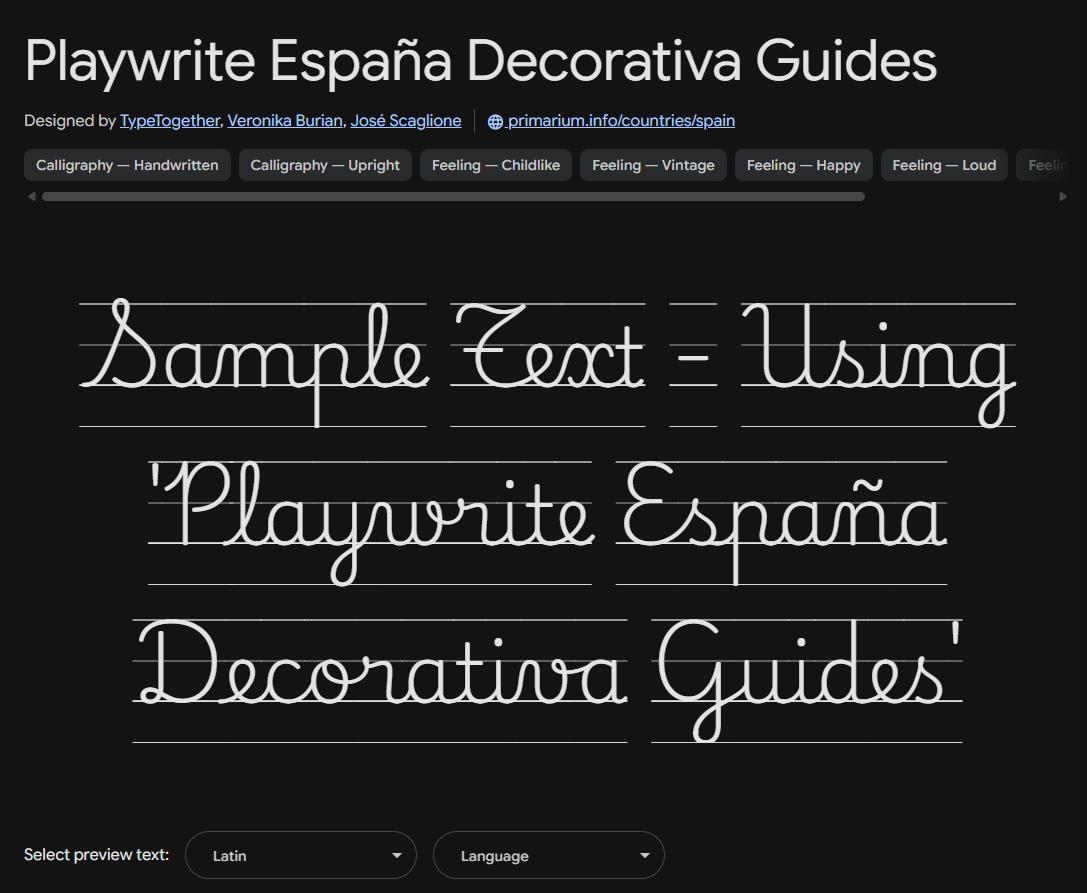
Playwrite España Decorativa Guides, a single-style pedagogical masterpiece engineered by Veronika Burian and José Scaglione of TypeTogether, represents a synthesis of cultural orthography and advanced typographic architecture designed to facilitate foundational literacy. This specialized typeface integrates structural horizontal guides directly into its vertical metrics, providing an immediate visual scaffold that maps the relationship between x-height, ascenders, and descenders according to the Spanish handwriting tradition. By utilizing high-fidelity glyph construction that emulates rhythmic pen-nib pressure and precise joinery, the font transforms the decorative cursive skeleton into a functional instructional tool, ensuring that the ornamental flourishes remain anchored to a rigorous geometric baseline for optimal legibility and motor skill acquisition.
The Playwrite España Decorativa Guides font family serves as a sophisticated pedagogical tool that bridges the gap between digital precision and the tactile nature of traditional schoolroom penmanship through its upright calligraphic ductus and handwritten skeletal structure. By integrating structural rule lines directly into the typeface, it evokes a vintage, instructional aesthetic that remains playful and childlike, yet possesses a rugged, textured presence that feels both happy and loud on the layout. This typeface adheres to specific Spanish educational standards, utilizing a high x-height and deliberate verticality to provide a rhythmic, upright script that is semantically optimized for early literacy. Its unique combination of playful geometry and technical clarity transforms standard educational materials into a vibrant typographic experience, blending the warmth of manual handwriting with the functional requirements of modern screen and print environments.
Due to its specialized pedagogical architecture featuring integrated ruling lines and continuous cursive strokes, Playwrite España Decorativa Guides is fundamentally unsuitable for high-density data environments, corporate financial reporting, or complex UI/UX interfaces where legibility at small optical sizes is critical. This typeface, engineered by TypeTogether with specific horizontal metrics to facilitate primary education handwriting instruction, introduces significant visual noise and fixed vertical constraints that clash with the clean aesthetic requirements of modern minimalist branding and the strict accessibility standards of medical or legal documentation. Its decorative flourishes and school-script origins lack the neutral typographic voice necessary for professional B2B communications, while the baked-in guidelines disrupt the spatial harmony of multi-layered graphic compositions, making it a poor choice for any industry requiring high information density or an atmosphere of clinical authority.
This typeface excels in educational materials and nostalgic branding that requires a structured, handwritten aesthetic. The variable font weights allow for precise control over visual density, ensuring that the decorative guides maintain their integrity across different CSS font-variation-settings.
The integrated guide lines serve as a distinct architectural feature that adds a layer of technical sophistication to minimalist layouts. By manipulating the stroke-width of the decorative elements, designers can transform these lines into a foundational grid that dictates the vertical rhythm of the entire composition.
The font maintains exceptional clarity in high-resolution print environments, preserving the delicate details of the script and its associated guide lines. Because the glyphs are defined by high-precision cubic Bézier curves, they remain sharp even when scaled up for large-format lithographic printing.
Clean, geometric sans-serifs provide a modern counterpoint that balances the intricate, cursive nature of the decorative guides. Achieving optimal legibility requires a pairing font with a compatible x-height and neutral aperture to prevent visual competition between the complex script and the body text.
While suitable for accent elements, the complexity of the guides can hinder readability when used for long-form body copy on low-density displays. Sub-pixel rendering and anti-aliasing algorithms may blur the fine lines of the guides if the font-size falls below a 16px threshold on standard resolution screens.
Generous line height is necessary to prevent the guide lines of one row from overlapping with the descenders of the row above. Standard leading should be increased to at least 1.5 or 2.0 to accommodate the expanded vertical metrics required by the typeface's unique bounding box.
This font offers a distinctive visual identity for brands seeking an artisanal or pedagogical aesthetic. When converted to outlines, the specific vector path data allows for custom modifications to the guide lines, creating a proprietary logotype that retains its structural balance.
The font is highly effective for pull quotes and introductory caps where it can act as a bridge between imagery and text. Its usage in editorial design is often governed by typographic hierarchy, where the decorative guides provide a rhythmic pulse that directs the reader's eye through the layout structure.
High contrast is essential because the thinness of the guide lines makes them susceptible to disappearing against busy or low-luminance backgrounds. Analyzing the YIQ color space values ensures that the decorative elements maintain a high enough contrast ratio to pass accessibility standards while remaining aesthetically pleasing.
Due to its intricate detail and the presence of guide lines, this typeface is most effective when utilized as a display face for headers and hero sections. The character-mapping and glyph-density suggest that it functions best at larger point sizes where the intricate SVG-based decorative features can be fully appreciated by the viewer.